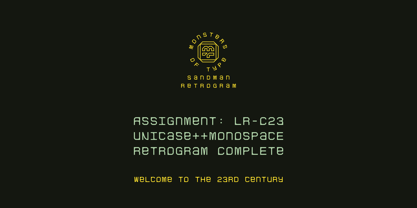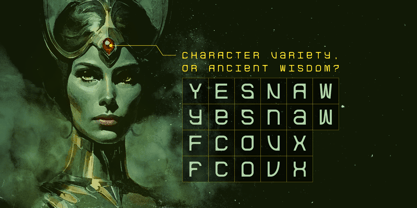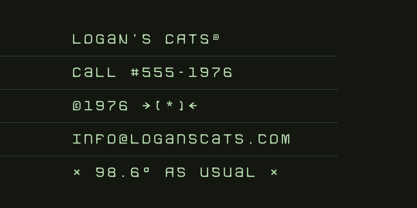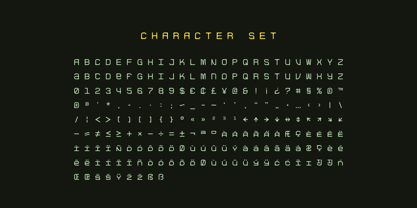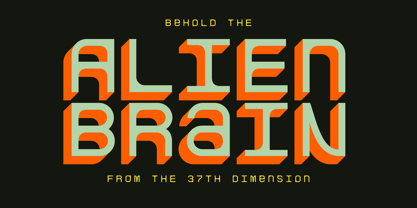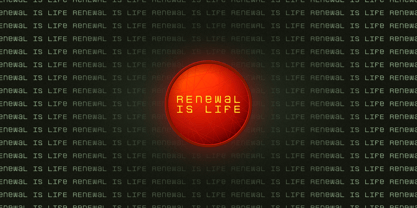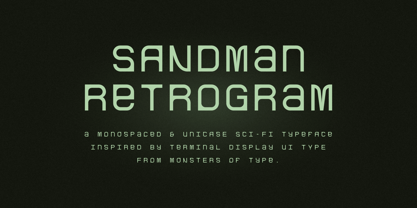
MoT Sandman
by Monsters of Type
The MoT Sandman Font Family was designed by Paul Sirmon and published by Monsters of Type. MoT Sandman contains 1 styles. More about this family
Sandman Retrogram is a monospaced, unicase sci-fi typeface inspired by retro computer terminals and cinematic interface design. Drawing from the restrained geometry of 1970s–80s screen graphics, it blends technical precision with a softened, human touch—resulting in a system type that feels both functional and atmospheric. Built on a strict grid, Sandman Retrogram maintains consistent rhythm and spacing, making it ideal for UI-inspired layouts, dashboards, HUD graphics, and data-driven compositions. At the same time, its rounded geometry and distinctive unicase structure give it a unique voice for display use, including posters, titles, and sci-fi branding. This balance between structure and personality allows the typeface to move comfortably between utility and expression. It can read like a working interface, a cinematic prop, or a piece of speculative design from an imagined future. Sandman Retrogram is well suited for: • Interface and UI design concepts • Sci-fi posters and film titles • Gaming graphics and HUD overlays • Tech branding and experimental layouts • Editorial features with a futuristic tone The character set includes uppercase, lowercase (unicase construction), numerals, punctuation, symbols, arrows, and extended Latin support—making it flexible for both design systems and expressive compositions. Pair Sandman Retrogram with neutral grotesks or minimal sans serifs to create contrast, or lean fully into its system-driven aesthetic for a cohesive, immersive look. Designed as both a functional tool and a visual language, Sandman Retrogram captures the feeling of a future imagined through the lens of early digital systems—ordered, precise, and just slightly uncanny.
Monsters of Type kicked off in 2013 by Paul Sirmon and Justin Miller. In the beginning it was a way to scratch the itch of type design, but it quickly morphed into a group that teaches design, typography and creativity, sells merch, creates custom lettering and type, and a few working typefaces. We don't take ourselves too seriously, but endeavor to create interesting tools that designers can use and make cool shtuff.